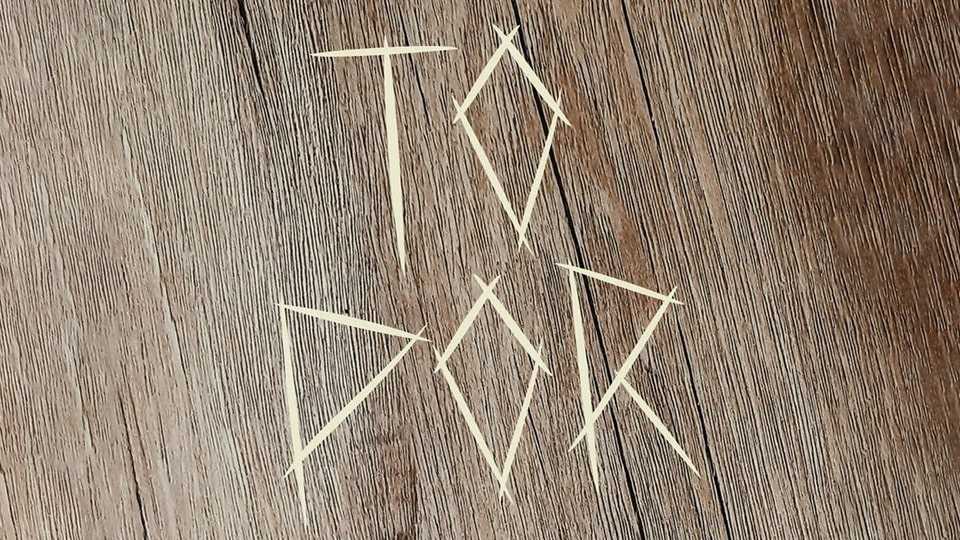
Download Topor font, a sharp and rugged hand-crafted typeface chiseled with the raw energy of an ax. Topor font bears the marks of its creation, with jagged edges and bold lines reminiscent of wood carved with precision and strength.